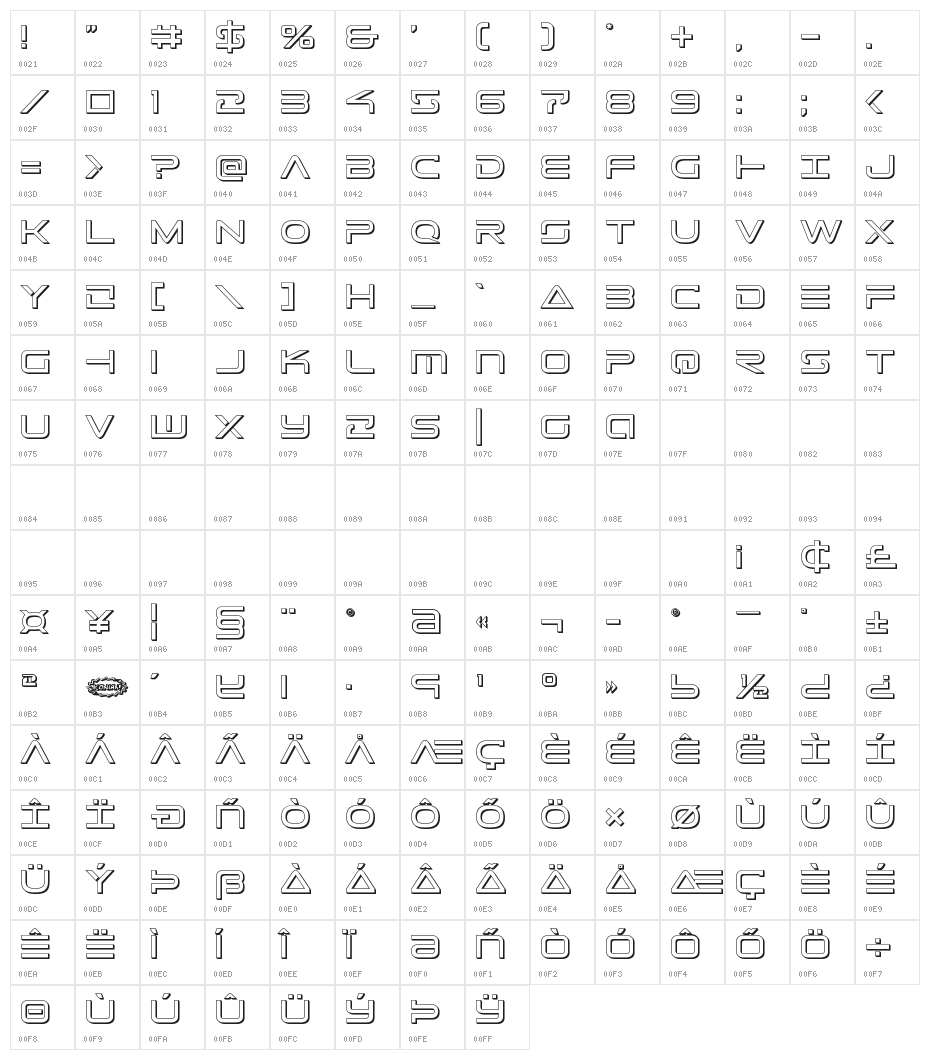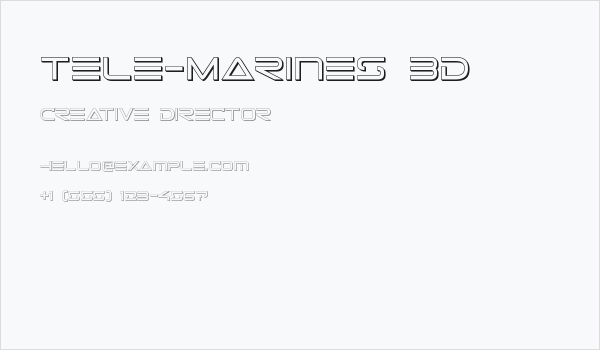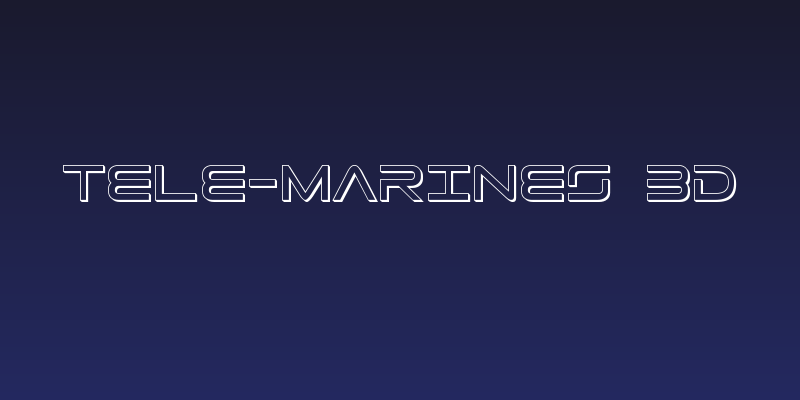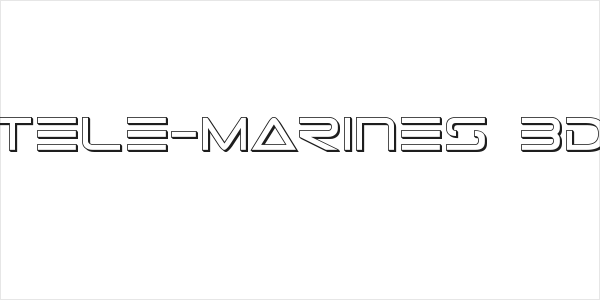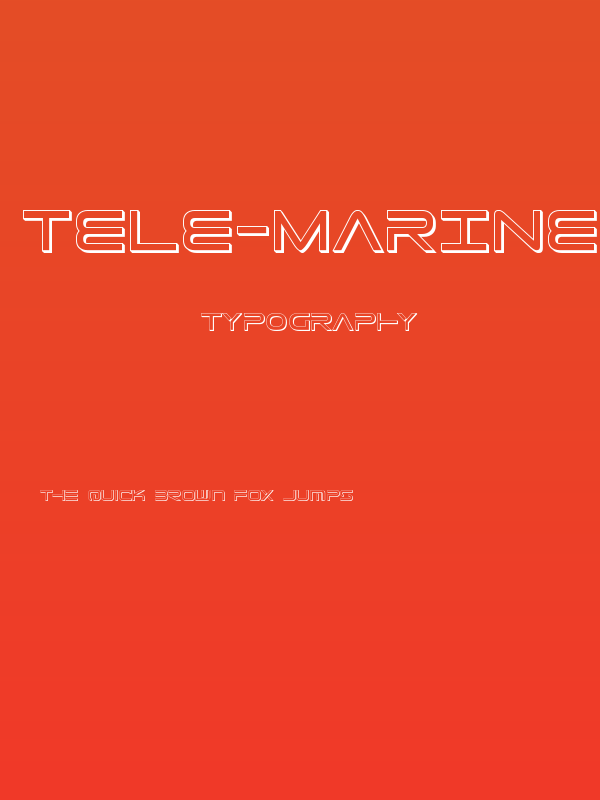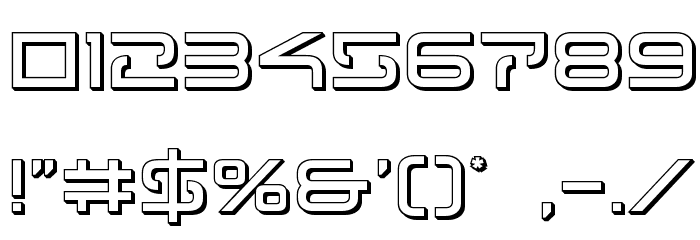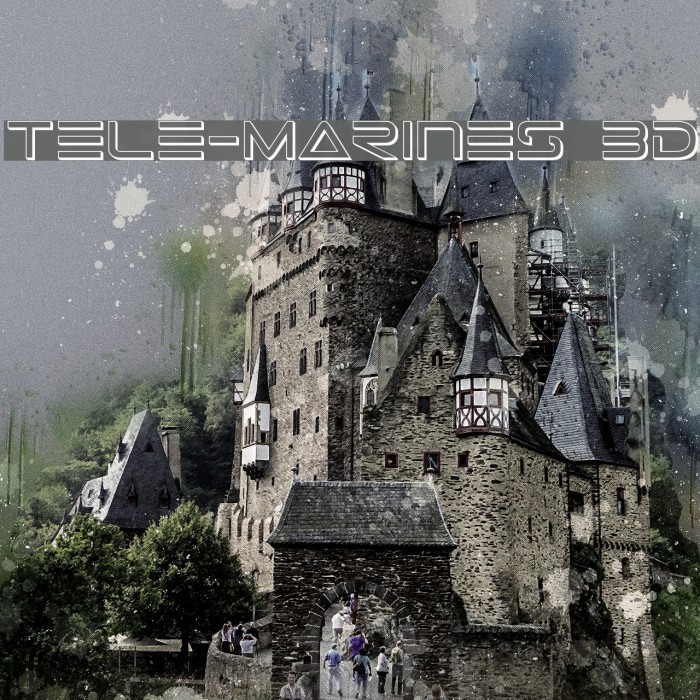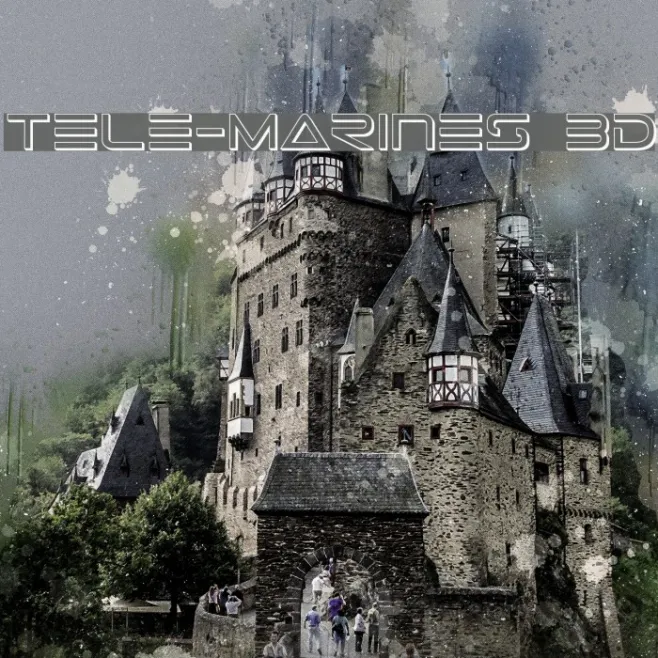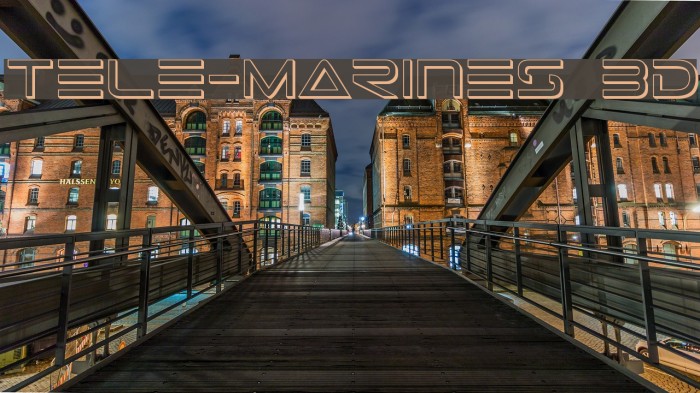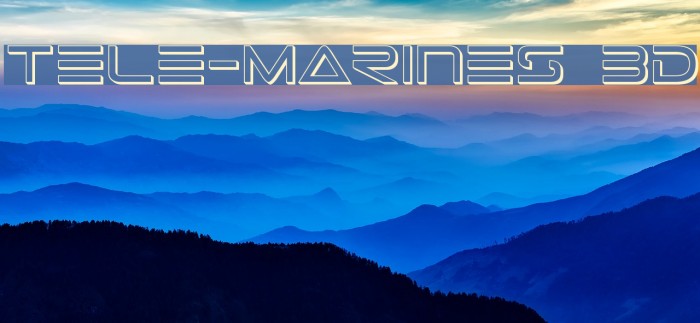
Tele-Marines 3D Font
Tele-Marines 3D Description
This font features a futuristic and geometric design with a 3D effect, characterized by its hollow, outlined letters. The uppercase and lowercase characters maintain a consistent style, with sharp angles and clean lines that create a sense of depth and dimension. The numerals and special characters follow the same design principles, ensuring uniformity across all elements. The font's unique aesthetic makes it ideal for projects that require a modern and technological feel.
TELE-MARINES-3D UPPERCASE
TELE-MARINES-3D LOWERCASE
TELE-MARINES-3D OTHER CHARS
| Proposed Projects | Ideal for sci-fi themed designs, technology branding, video game titles, and digital media projects. |